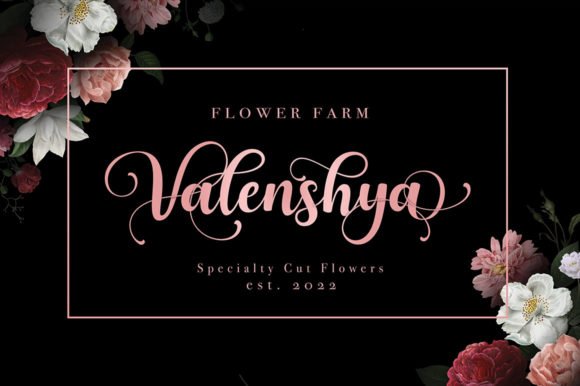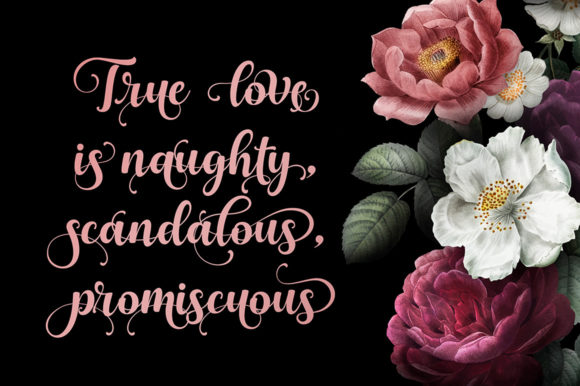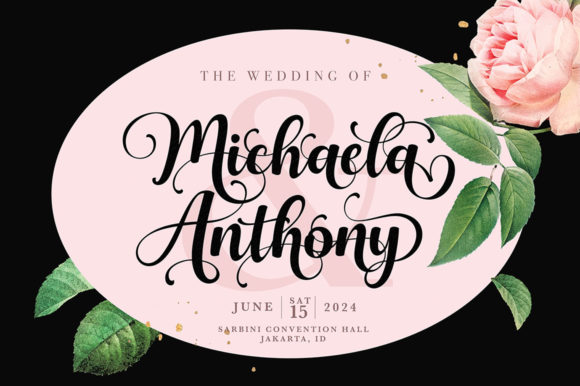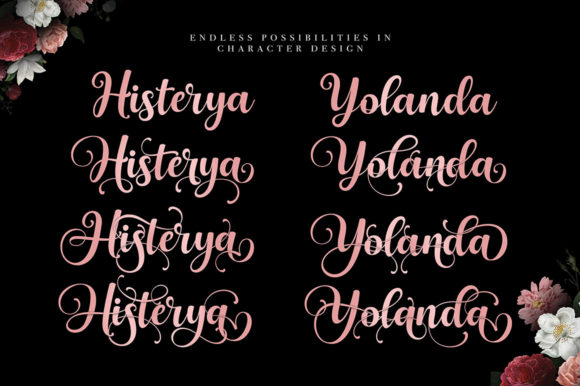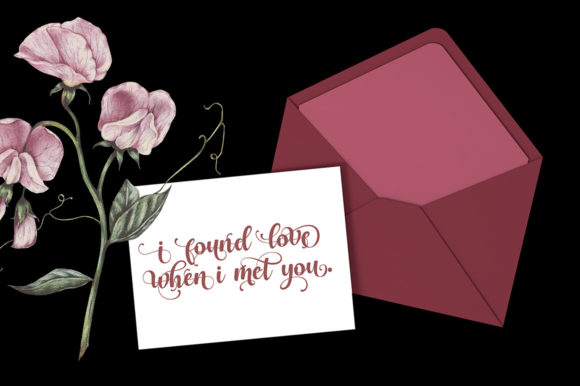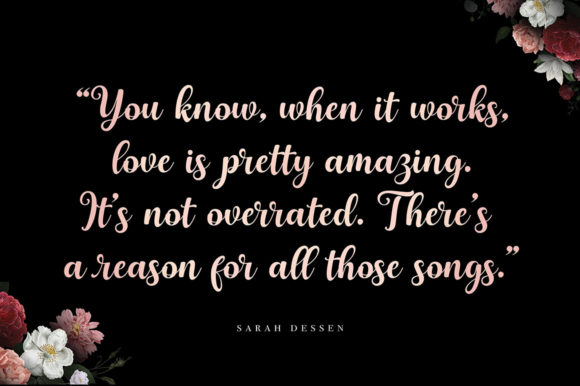
Have you ever been inspired by a beautiful font while browsing through a magazine or scrolling through social media? That’s exactly what happened to many designers when they discovered the Gloria Beauty Font. This stunning script font is a game-changer for anyone looking to add a touch of elegance and sophistication to their designs.
With its unique, connected letter characters, the Gloria Beauty Font is sure to capture the hearts of your audience. Its beautiful, well-balanced characters make it suitable for a wide range of purposes, from posters and wedding invitations to logos, branding, and titles. As a designer, you’ll appreciate the versatility and value that this font brings to your creative projects.
Gloria Beauty Font Key Features
- Unique Characteristics: Gloria Beauty Font features a unique, elegant, and sophisticated design, making it perfect for beauty and fashion-related projects, as well as high-end branding and advertising.
- Character Set: The font includes a comprehensive character set, including uppercase and lowercase letters, numbers, punctuation marks, and special characters, making it suitable for a wide range of applications.
Gloria Beauty Font Review
As a designer, I had the chance to work with the Gloria Beauty Font, and I’m here to share my honest thoughts on this font.
What works well: ✨ The Gloria Beauty Font has a beautiful, elegant feel to it. The curves are smooth, and the typography is clean. It’s perfect for any design project that requires a touch of sophistication. I particularly like how it works well for branding, advertising, and fashion-related designs.
What doesn’t work well: ⚠️ While the Gloria Beauty Font is lovely, it can be a bit too ornate for certain projects. It may not be the best choice for designs that require a more minimalist approach or for text-heavy content. Additionally, the font can be a bit difficult to read at smaller sizes, so be mindful of that when using it for smaller text.
Overall impression: The Gloria Beauty Font is a beautiful addition to any designer’s toolkit. While it may have some limitations, its unique charm and elegance make it a great choice for the right projects.
- Best suited for: branding, advertising, fashion, and luxury-related designs
- Can be too ornate for minimalist designs
- May be difficult to read at smaller sizes
Tips for Getting the Most Out of Gloria Beauty Font
Use Gloria Beauty Font for headings and titles to create a luxurious and sophisticated look. Experiment with different font sizes and colors to add depth and visual interest. Combine Gloria Beauty Font with other fonts to create a unique and eye-catching design.
Gloria Beauty Font is perfect for beauty and wellness branding, spa and salon marketing, and luxury product packaging. It can also be used for fashion and lifestyle designs, as well as for creating a high-end and glamorous look.